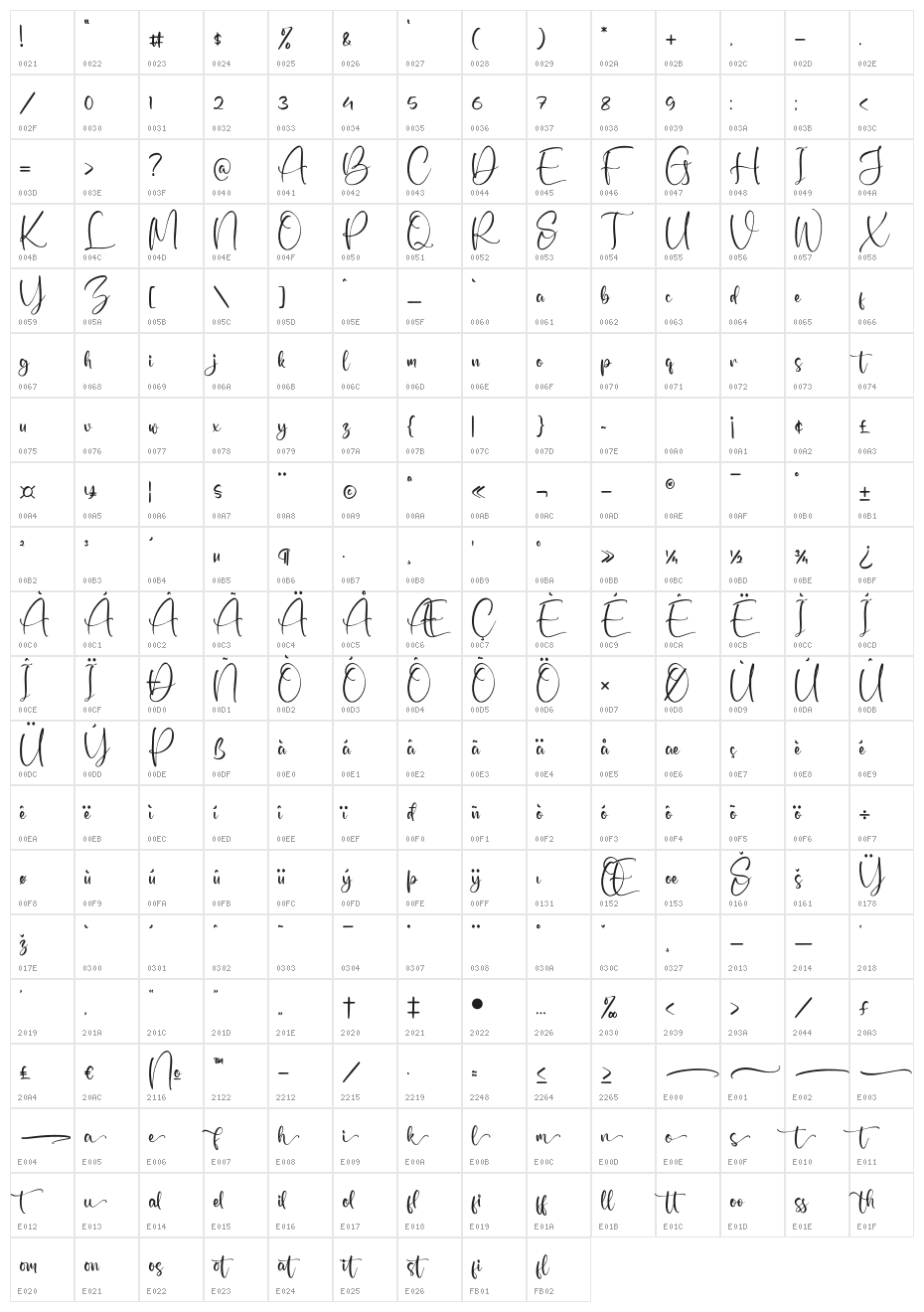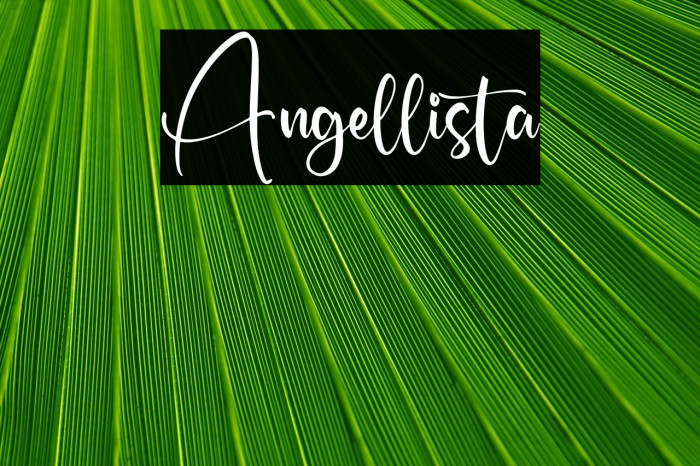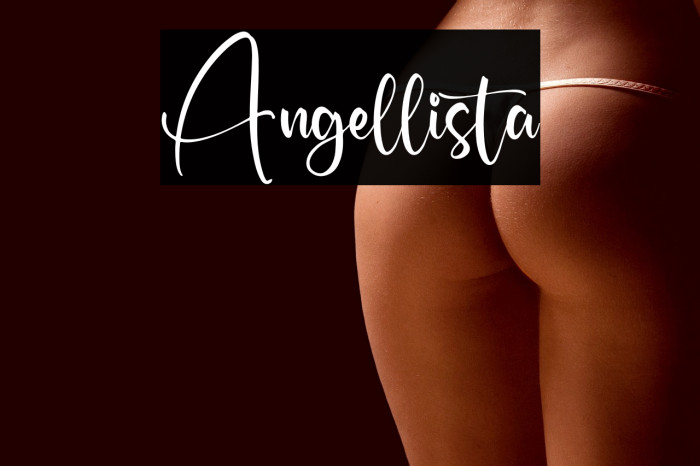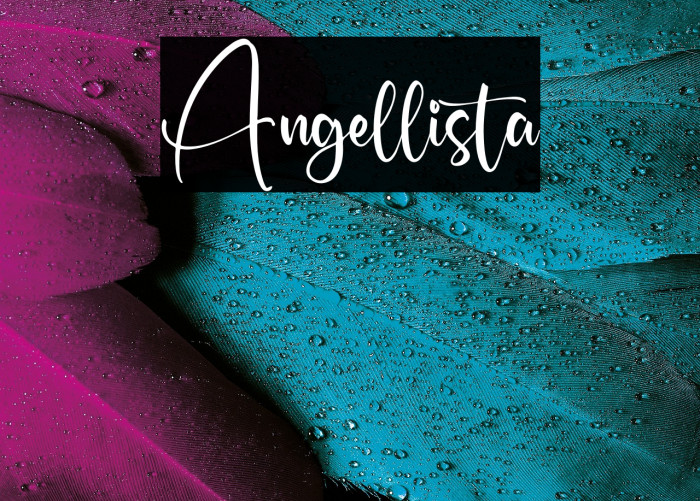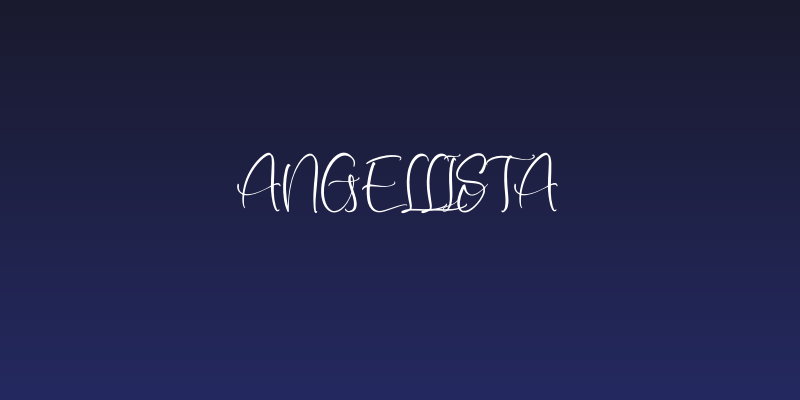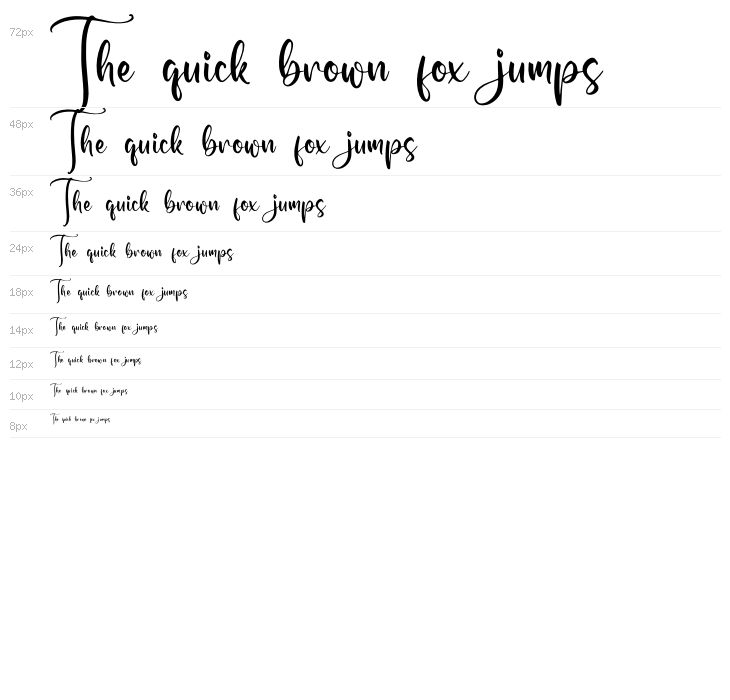
Angellista Font
Angellista Description
A flowing, elegant script font with a handwritten feel, featuring smooth curves and a casual yet sophisticated style.
| Use Case | Logos, Headlines |
| Proposed Projects | Invitations, greeting cards, branding, social media graphics. |